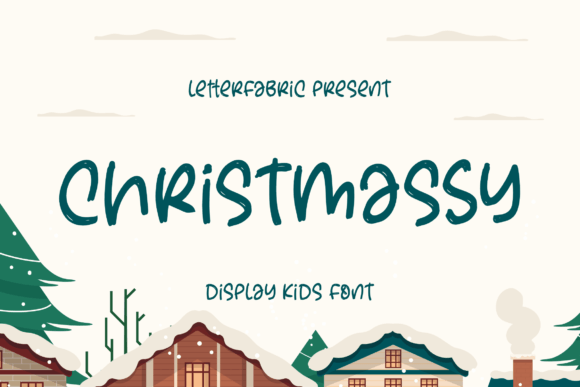
In a world where conformity reigns supreme, embrace the extraordinary with Christmassy Font – a script font family that ignites your imagination and captures the essence of individuality. Step into a realm of boundless creativity, where every letter dances with a unique charm, inviting you to express your authentic self.
Unleash the boundless potential of Christmassy Font, meticulously crafted for those seeking a font that embodies the spirit of celebration. With its playful and lighthearted demeanor, this font is tailor-made for joyous occasions, transforming your designs into captivating expressions of merriment.
Designed with an exquisite attention to detail, each character in the Christmassy Font family exudes a captivating personality, adding a touch of whimsy and delight to your creations. Its flowing lines and playful curves evoke a sense of carefree abandon, making it the perfect choice for adding a touch of magic to your invitations, greeting cards, posters, and social media posts.
Immerse yourself in the enchanting world of Christmassy Font, where imagination reigns free and creativity knows no bounds. Let your designs sparkle with festive cheer, as this font weaves its enchanting spell, transforming ordinary words into extraordinary works of art.
With Christmassy Font, the possibilities are endless. Its versatility extends beyond invitations, embracing a myriad of creative projects. Craft stunning logos that exude a sense of warmth and joy, design eye-catching website headers that radiate positivity, or create captivating social media graphics that spread happiness like wildfire.
Whether you're a seasoned designer or just starting your creative journey, Christmassy Font is your steadfast companion, guiding you towards design excellence. Its user-friendly nature makes it accessible to all, empowering you to unleash your inner artist and leave a lasting impression on your audience.
So, embark on an adventure of creative expression with Christmassy Font, the script font family that ignites your imagination and sets your designs ablaze with festive cheer. Embrace the joy of individuality and let your creativity soar to new heights, transforming your designs into captivating masterpieces that resonate with your audience.